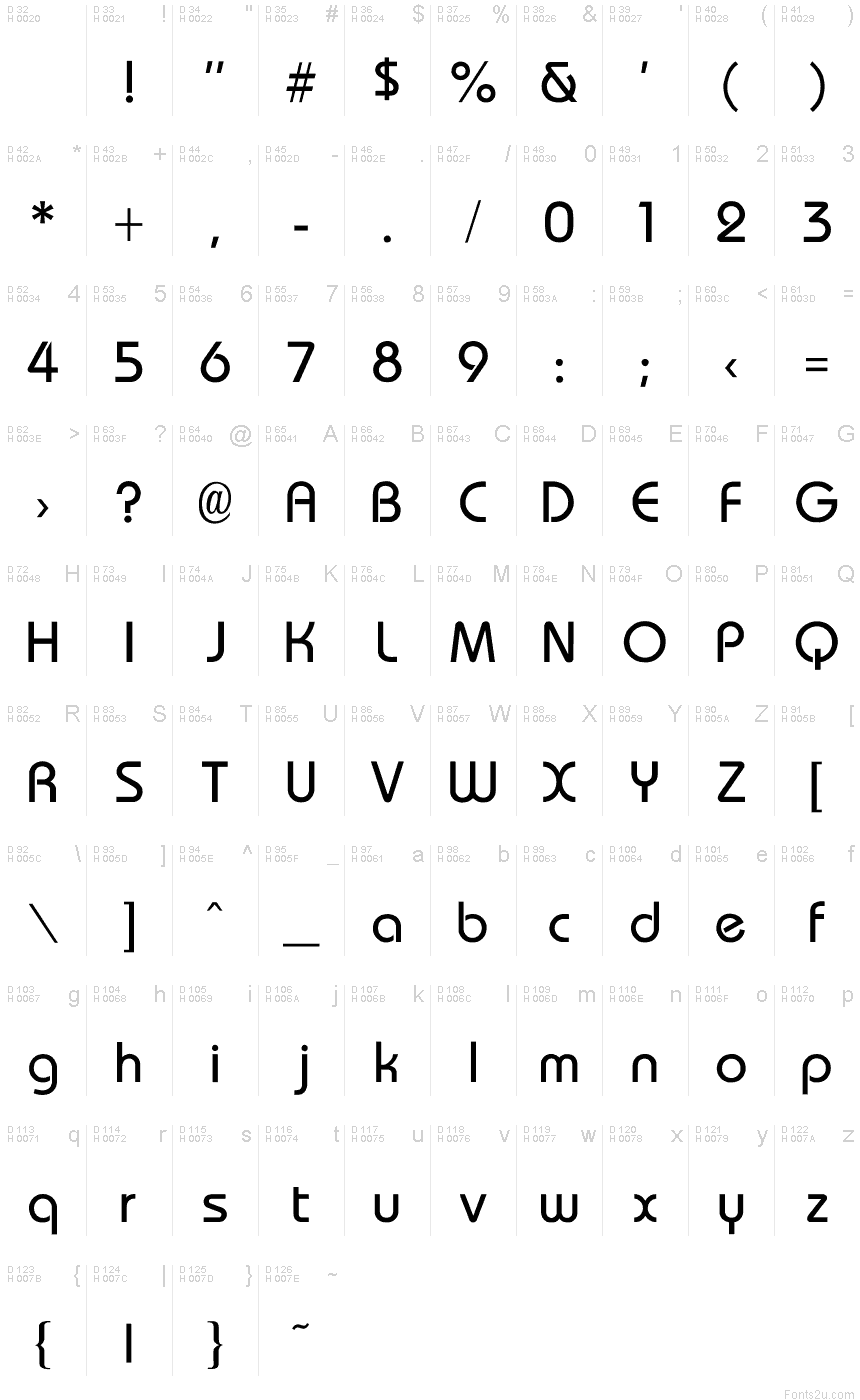
Opal
Opal font by Converted by Alltype is a free retro display font with rounded, open letterforms and a smooth geometric rhythm. The shapes keep a simple, almost circular structure, with soft corners and a calm, even flow that gives the design a distinctly vintage outline without extra decoration.
Opal works well for vintage posters, music flyers, branding, packaging, logos, and short web graphics where those clean curves need to carry the message. This free font suits those uses because its letterforms feel compact and graphic, making it easy to build a title, badge, or identity mark that looks tied to a retro design language.